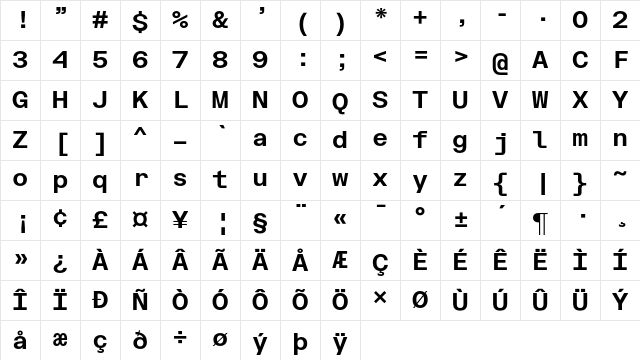
FK Grotesk Mono Bold
Foundry: Florian Karsten
Designer: Florian Karsten
Design Context for FK Grotesk Mono
FK Grotesk Mono uses fixed-width spacing throughout, giving it the structured, systematic character associated with coding environments and technical documentation. Its bold stroke weight gives it real presence on the page.